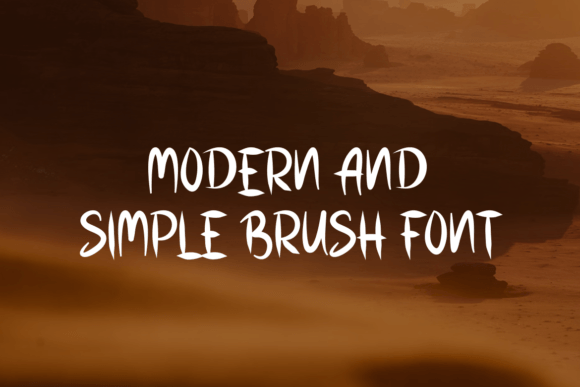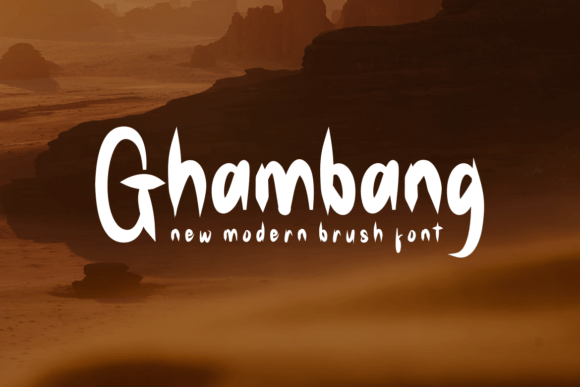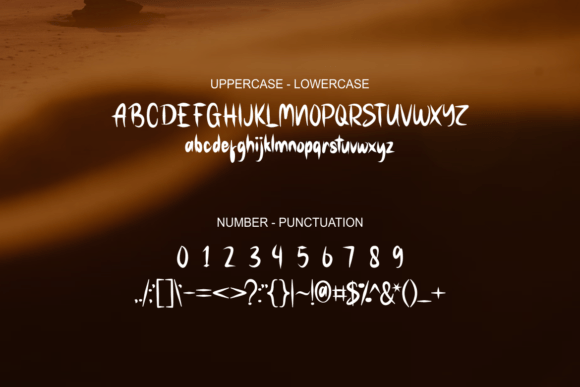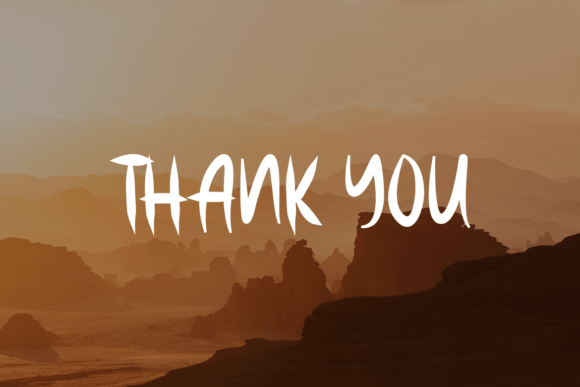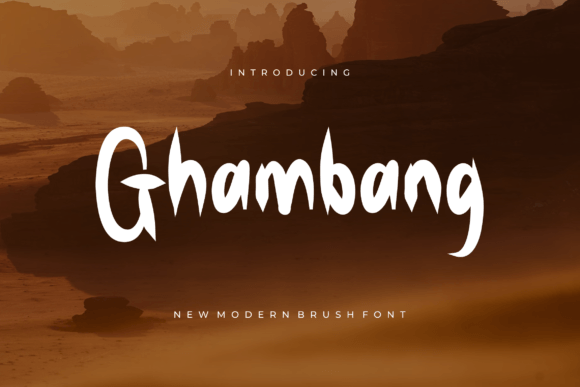
Unleash Your Creativity with Ghambang Font: A Bold and Edgy Brush Font
Are you tired of using the same old fonts for your designs? Do you want to add a touch of boldness and edge to your creations? Look no further than Ghambang Font, a powerful and striking brush font that’s perfect for attention-grabbing headlines and designs.
What is Ghambang Font?
Ghambang Font is a bold and strong brush font with sharp, striking edges. Its unique design makes it stand out from other fonts, giving it a powerful and edgy look that’s sure to grab attention. Whether you’re a designer, crafter, or simply someone who loves to create, Ghambang Font is the perfect addition to your font collection.
Key Features of Ghambang Font
• Bold and Strong: Ghambang Font is designed to make a statement. Its bold and strong strokes are perfect for creating attention-grabbing headlines and designs.
• Sharp and Striking Edges: The sharp and striking edges of Ghambang Font give it a unique and edgy look that’s sure to set it apart from other fonts.
• Perfect for Headlines and Designs: Whether you’re creating a poster, flyer, or social media graphic, Ghambang Font is the perfect choice for adding a touch of boldness and edge to your designs.
• Easy to Read: Despite its bold and edgy design, Ghambang Font is easy to read, making it perfect for use in a variety of design applications.
Uses for Ghambang Font
Ghambang Font is a versatile font that can be used in a variety of design applications, including:
• Posters and Flyers: Add a touch of boldness and edge to your posters and flyers with Ghambang Font.
• Social Media Graphics: Use Ghambang Font to create eye-catching social media graphics that are sure to grab attention.
• Logos and Branding: Ghambang Font is perfect for creating bold and edgy logos and branding materials.
• Crafting and Scrapbooking: Add a touch of personality to your crafting and scrapbooking projects with Ghambang Font.
Tips for Using Ghambang Font
Here are a few tips for getting the most out of Ghambang Font:
• Use it Sparingly: Because of its bold and edgy design, Ghambang Font is best used sparingly. Use it to add emphasis to key words or phrases, rather than overwhelming your design with too much bold text.
• Pair it with Other Fonts: Ghambang Font pairs well with a variety of other fonts, including sans-serif fonts and script fonts. Experiment with different pairings to find the one that works best for your design.
• Experiment with Colors: Ghambang Font looks great in a variety of colors, from bold and bright to more muted and subtle. Experiment with different colors to find the one that works best for your design.
Ghambang Font is a powerful and striking brush font that’s perfect for designers, crafters, and anyone who loves to create. Its bold and strong strokes, sharp and striking edges, and easy-to-read design make it a versatile font that can be used in a variety of design applications. Whether you’re creating posters and flyers, social media graphics, logos and branding materials, or crafting and scrapbooking projects, Ghambang Font is the perfect choice for adding a touch of boldness and edge to your designs.
• What type of font is Ghambang Font? Ghambang Font is a bold and strong brush font with sharp, striking edges.
• What is Ghambang Font used for? Ghambang Font is perfect for attention-grabbing headlines and designs, including posters and flyers, social media graphics, logos and branding materials, and crafting and scrapbooking projects.
• Is Ghambang Font easy to read? Yes, despite its bold and edgy design, Ghambang Font is easy to read, making it perfect for use in a variety of design applications.